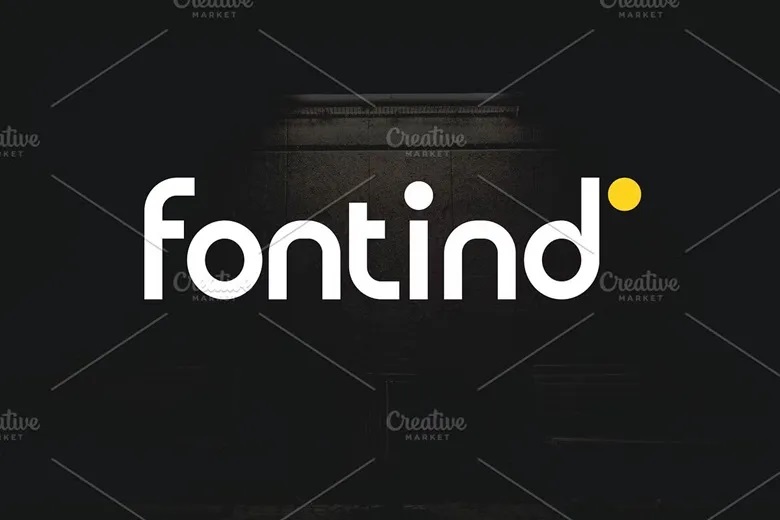
Fontind Font
Fontind is an innovative sans serif typeface that Iwan Alwan has created with an unconventional approach to every single letter. Perfect for today’s branding, logos, and editorial design, Fontind brings the fresh and unique feel to any project. It also features multilingual support together with ligatures, and alternates.
Fontind is a versatile font but it is also original and, as such, it will suit designs that are intended to be unique and eye-catching. These fonts are perfect for product logo, wedding card logo, clothing brand logo, Vintage design and much more.
Fontind Sans Serif Font